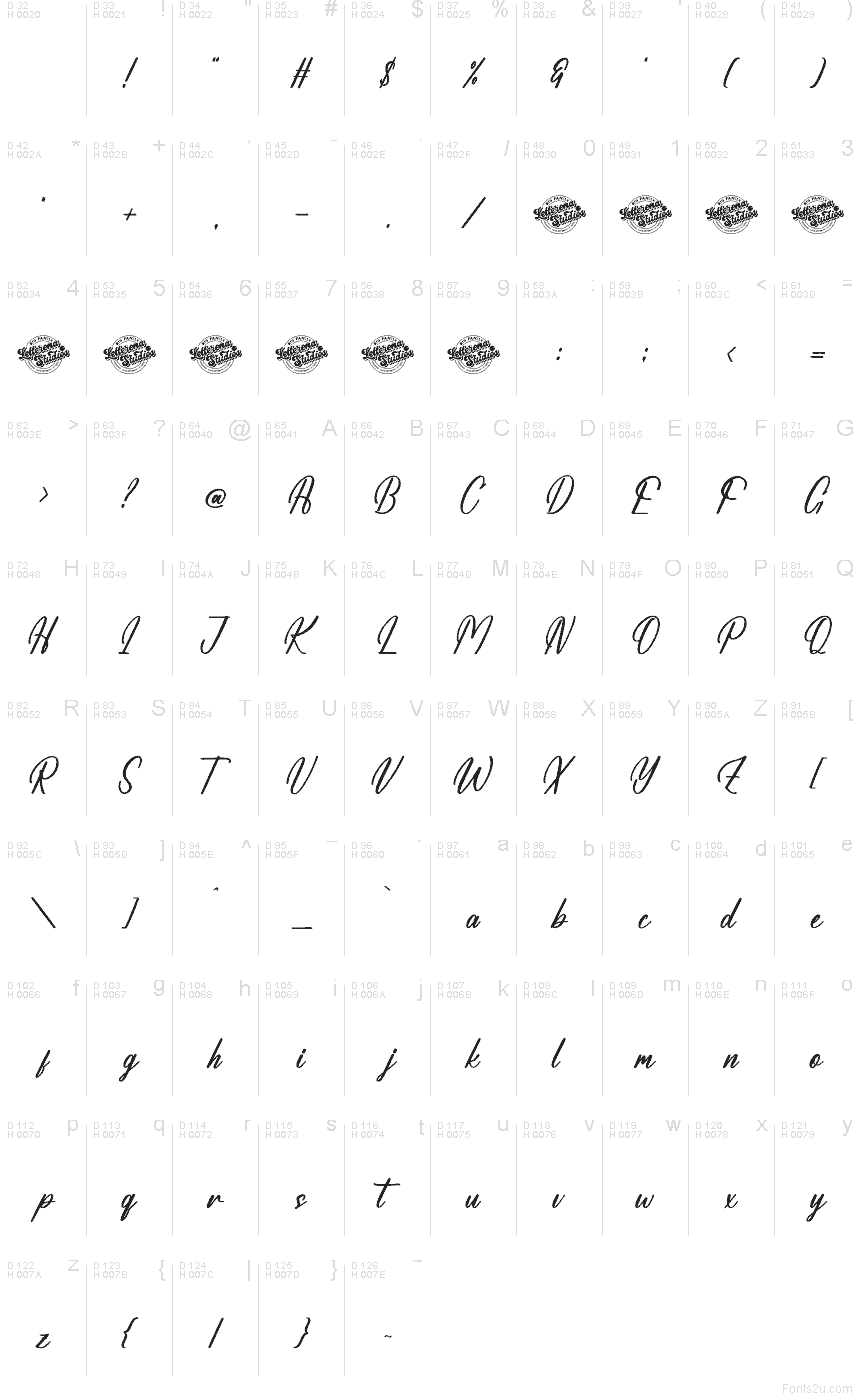
Amathery Bieckmon DEMO VERSION
Amathery Bieckmon font by Letterena Studios is a free handwritten signature typeface that brings the smooth swing of ink-on-paper into digital work. Its flowing, moderately slanted strokes feel like a quick, confident autograph—elegant, but not fussy—while the slightly rough, inky edges keep it from looking sterile or generic. The letters connect with an easy rhythm, giving logos, titles, and names a sense of movement and personality rather than stiff formality.
Using Amathery Bieckmon, you can give wedding invitations, brand marks, social media graphics, product packaging, watermark signatures, and blog headers a polished, personal touch. This free font shines when used large, letting the sweeping curves and subtle texture breathe on the page or screen. For a balanced look, pair Amathery Bieckmon with a clean sans-serif for body text so the script can play the role of stylish, memorable accent.